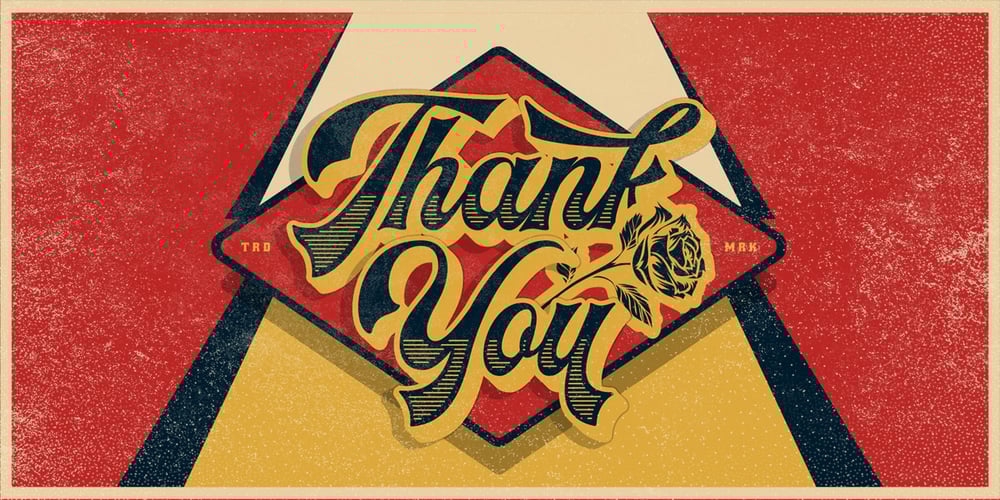
Headster Font Family was designed by Amir Subqi Setiaji, Bangkit Tri Setiadi and published by Bombastype. Headster contains 5 styles and family package options. Headster is bold script font that is inspired by vintage signage designs. It consists of 5 weights which function as layers, and also includes alternate characters. You can mix and match your best combination. With all those things we mention about, this font is perfect for your many design projects, such as flyers, logo design, badges, packaging, invitations and more.